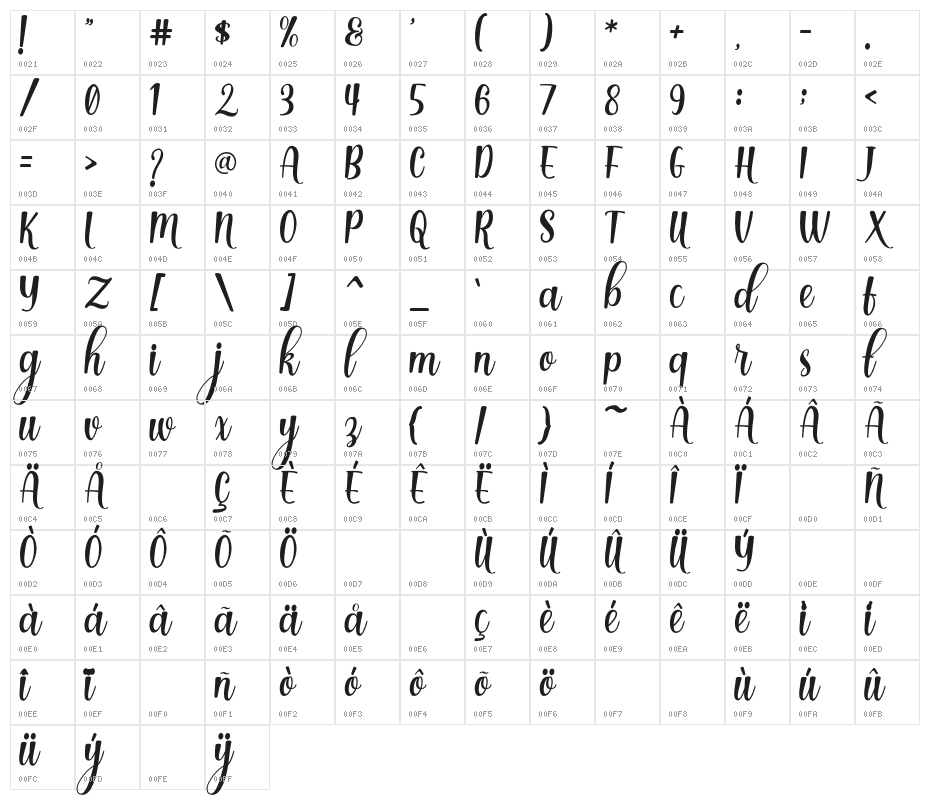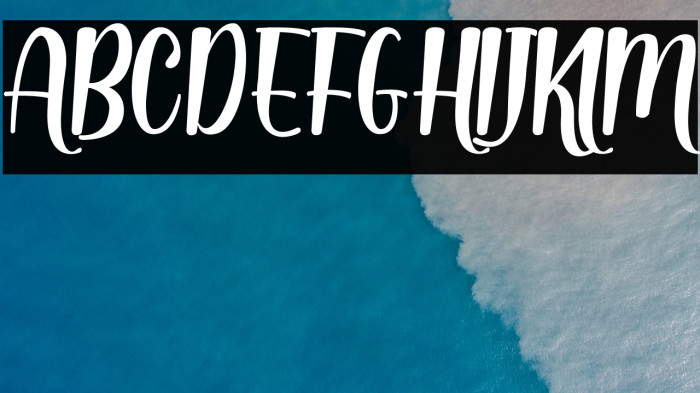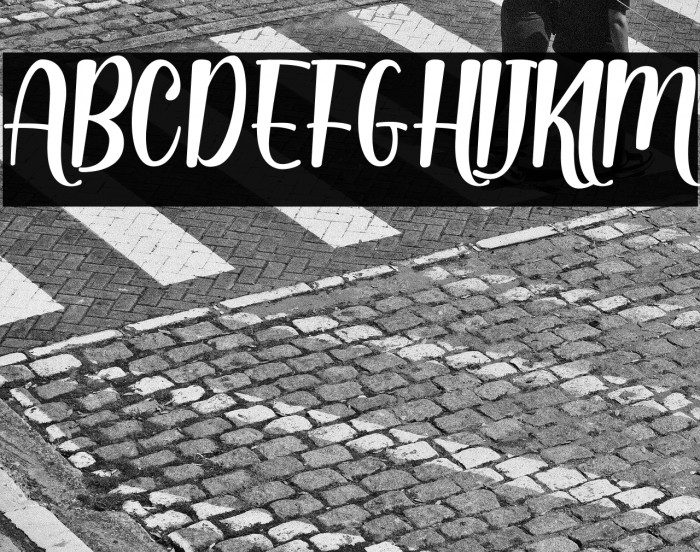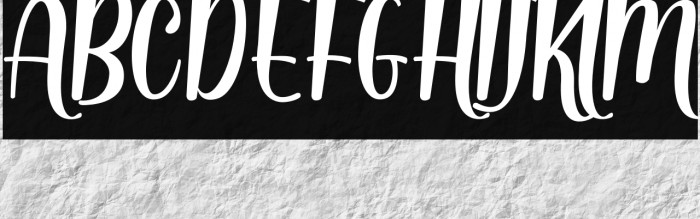
Dinalima Script Font
Dinalima Script Description
This script font features elegant, flowing lines with a handwritten style, characterized by its smooth curves and fluid connections between letters. The uppercase letters are bold and expressive, while the lowercase letters maintain a consistent, graceful appearance. The numerals and special characters are designed with the same attention to detail, ensuring a cohesive look across all elements. The font's overall aesthetic is both sophisticated and approachable, making it suitable for a variety of design applications.
| Overall Style | Elegant, Handwritten |
| Use Case | Logos, Invitations, Branding |
| Proposed Projects | Ideal for wedding invitations, greeting cards, branding projects, and elegant packaging designs. |